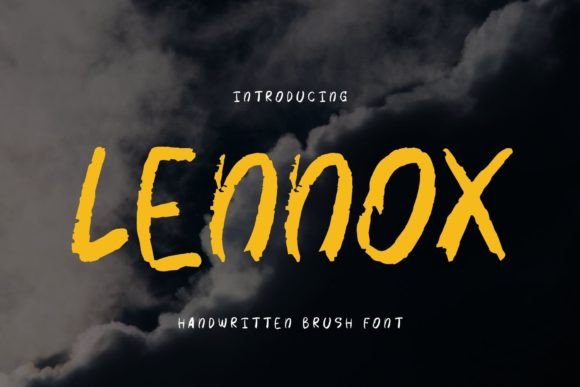
Immerse yourself in the captivating world of Lennox Font, a script font family that exudes playfulness and authenticity. Crafted with meticulous care by Brown Cupple Fonts, Lennox is not just a font; it's a gateway to boundless creativity.
Lennox's enchanting strokes dance across the page, evoking a sense of whimsy and charm. Its meticulously designed letterforms, particularly the distinctive letter "B," will add a touch of elegance to your projects, making them stand out from the crowd.
Whether you're crafting blog posts, designing logos, or creating eye-catching branding materials, Lennox is your perfect companion. Its versatility extends to ads, invitations, greeting cards, planners, photo albums, and decorations. Let Lennox be the vibrant brushstroke that brings your ideas to life!
With Lennox, your designs will radiate a sense of playfulness and authenticity. Its handwritten charm will capture the hearts of your audience, leaving a lasting impression. It's the perfect font for those who want their creations to exude a sense of personality and uniqueness.
Unleash your creativity and let Lennox guide you on an artistic journey. Its user-friendly nature makes it accessible to designers of all levels. Join the countless satisfied users who have discovered the magic of Lennox Font and transformed their designs into works of art.